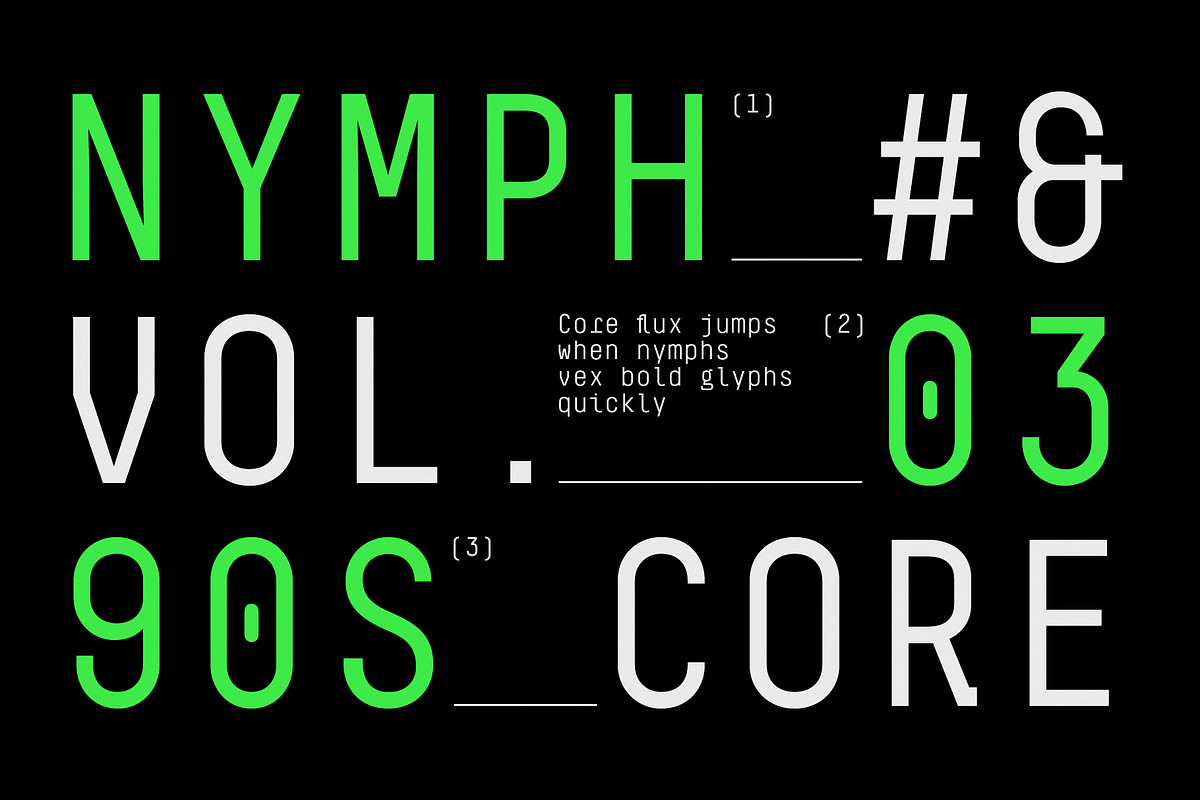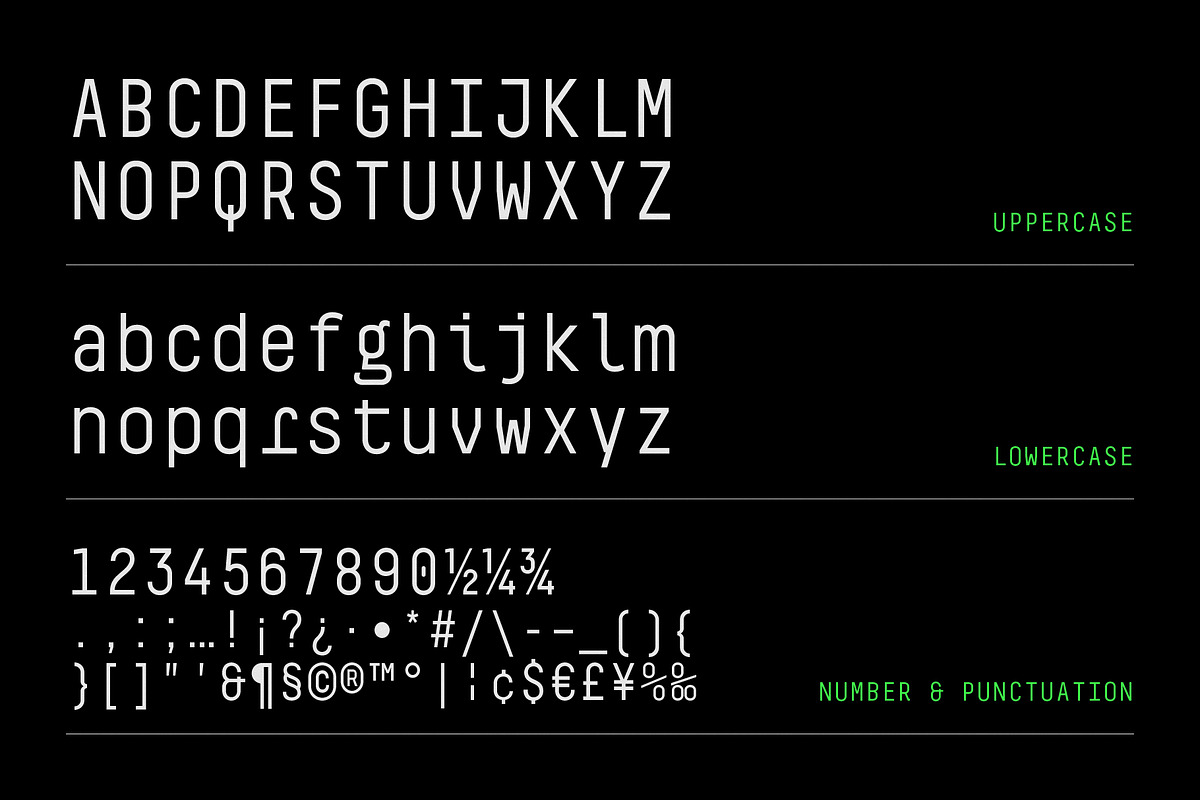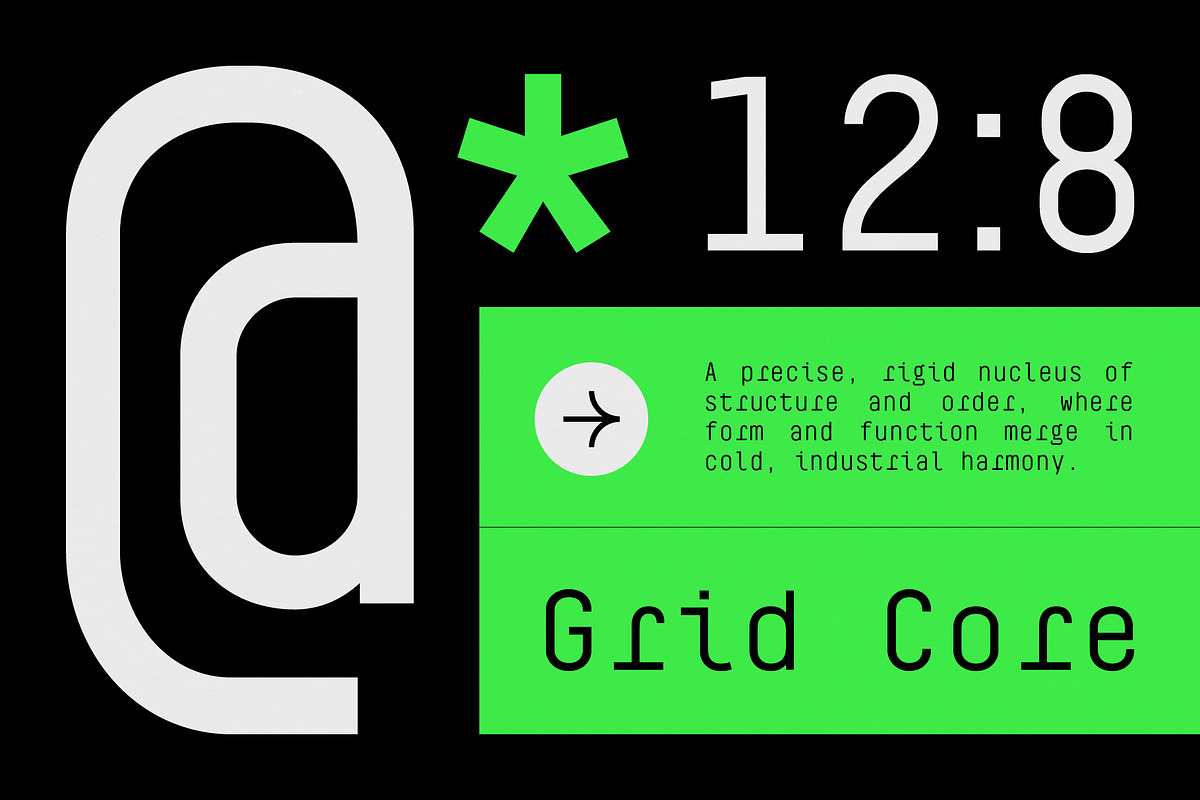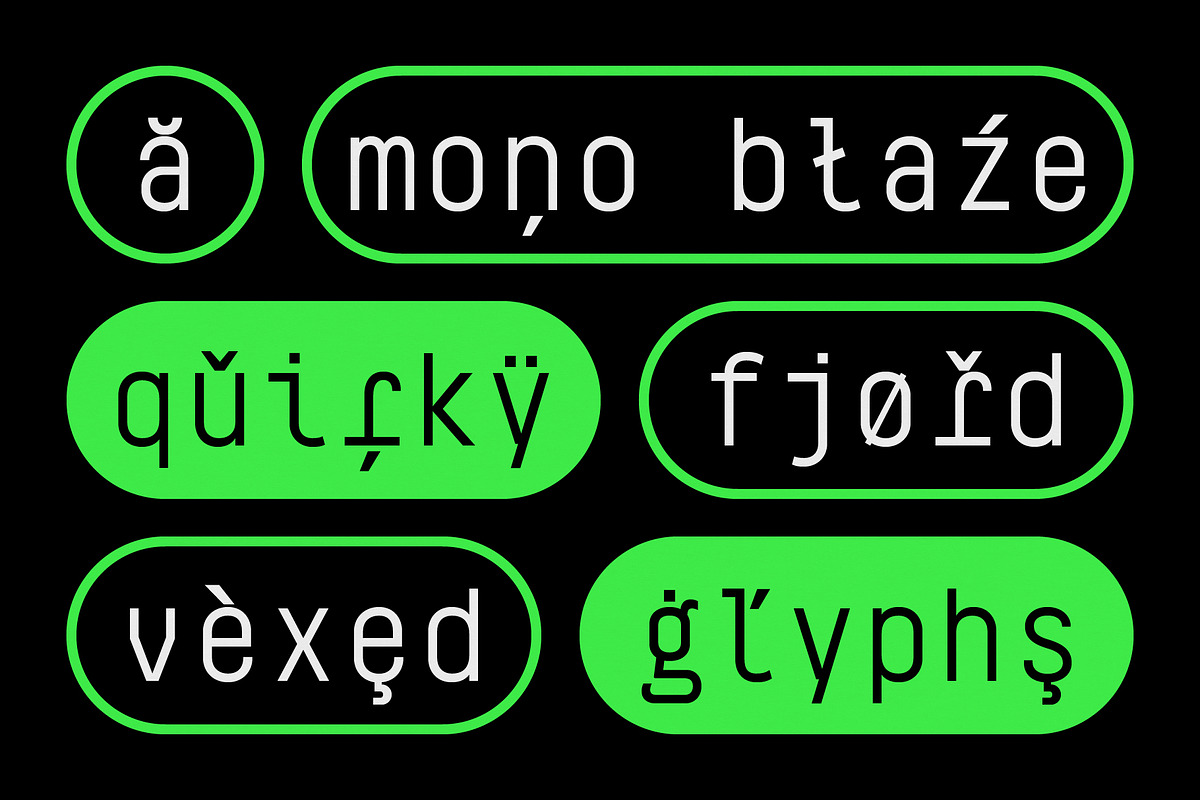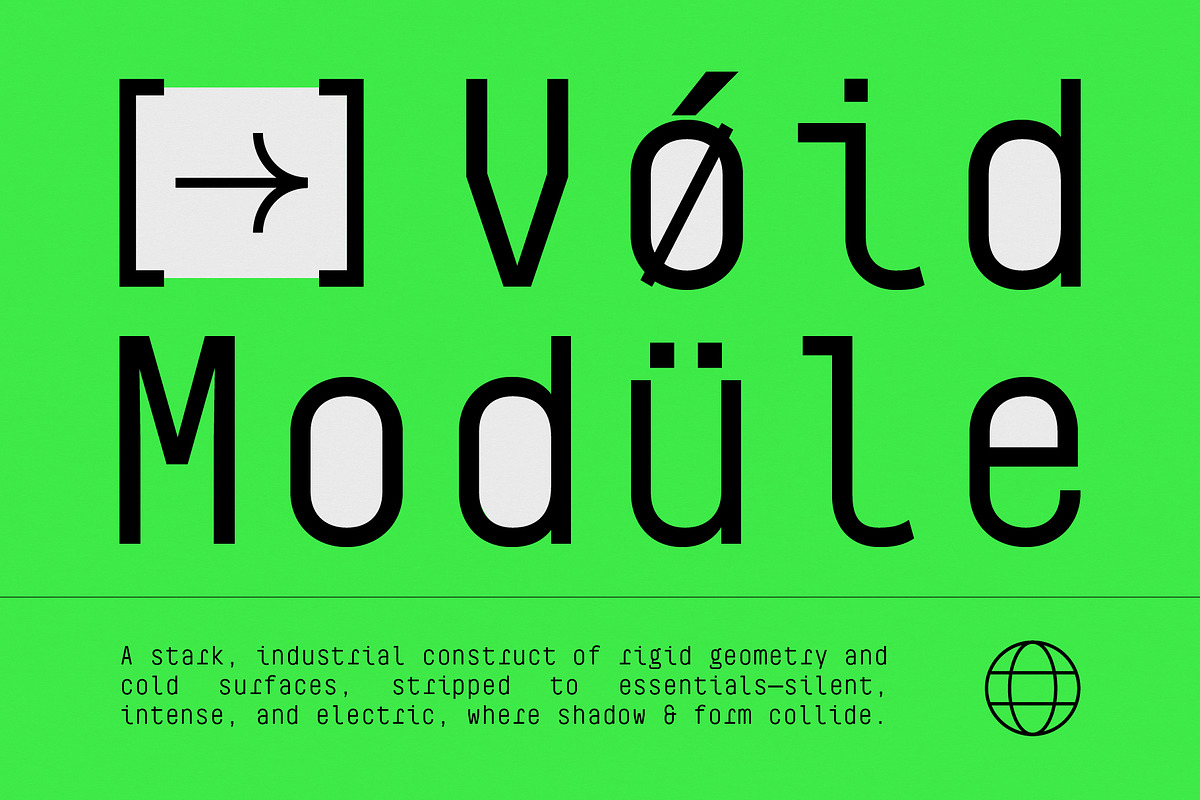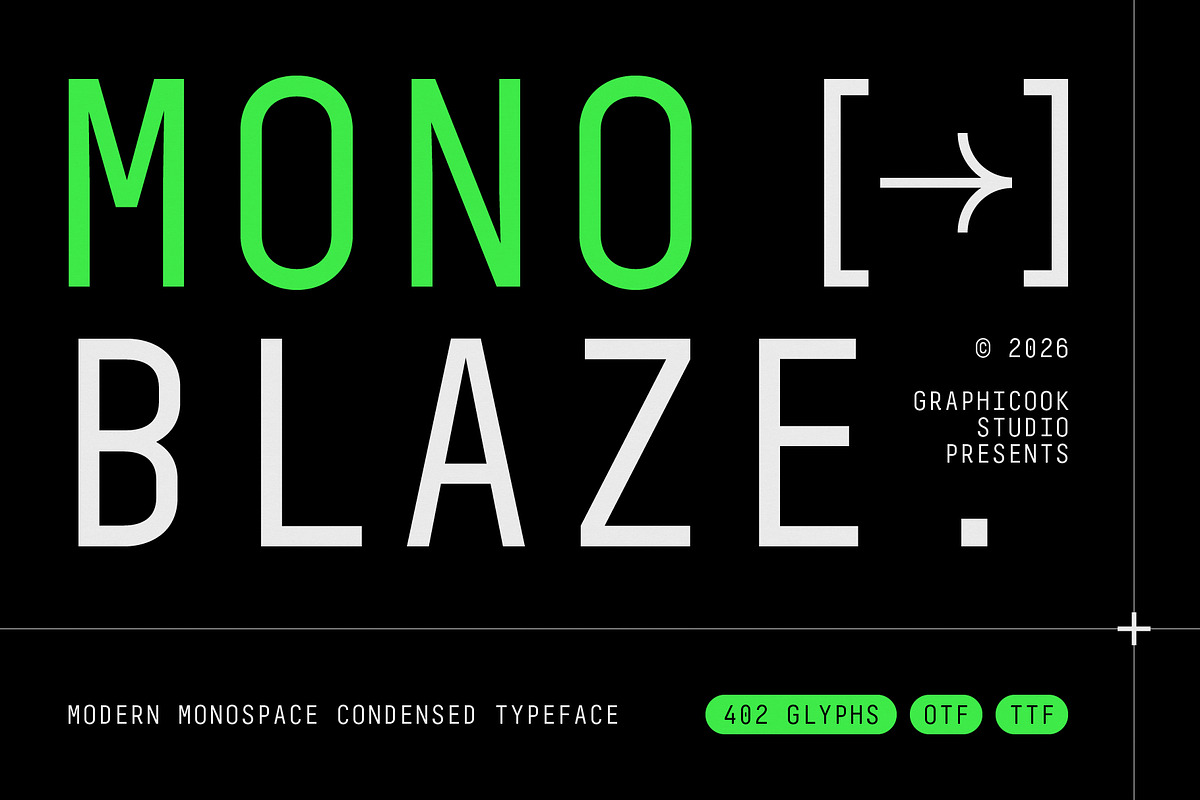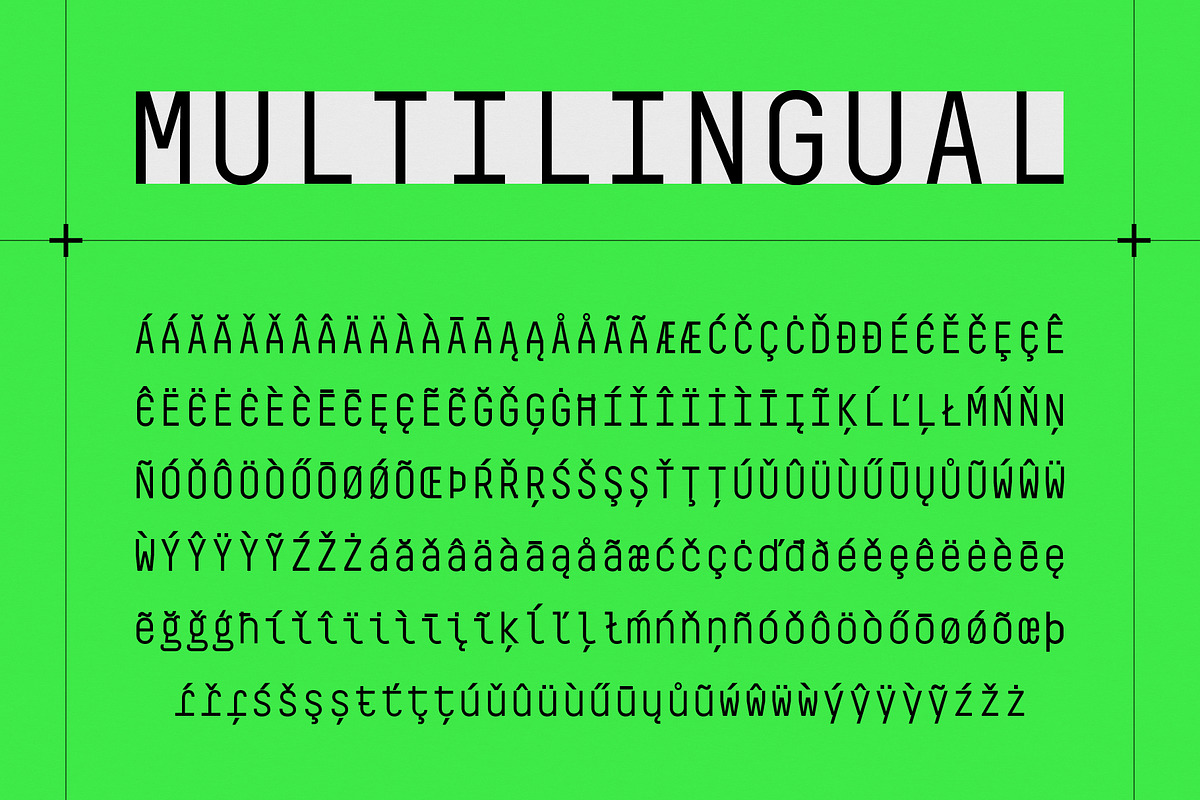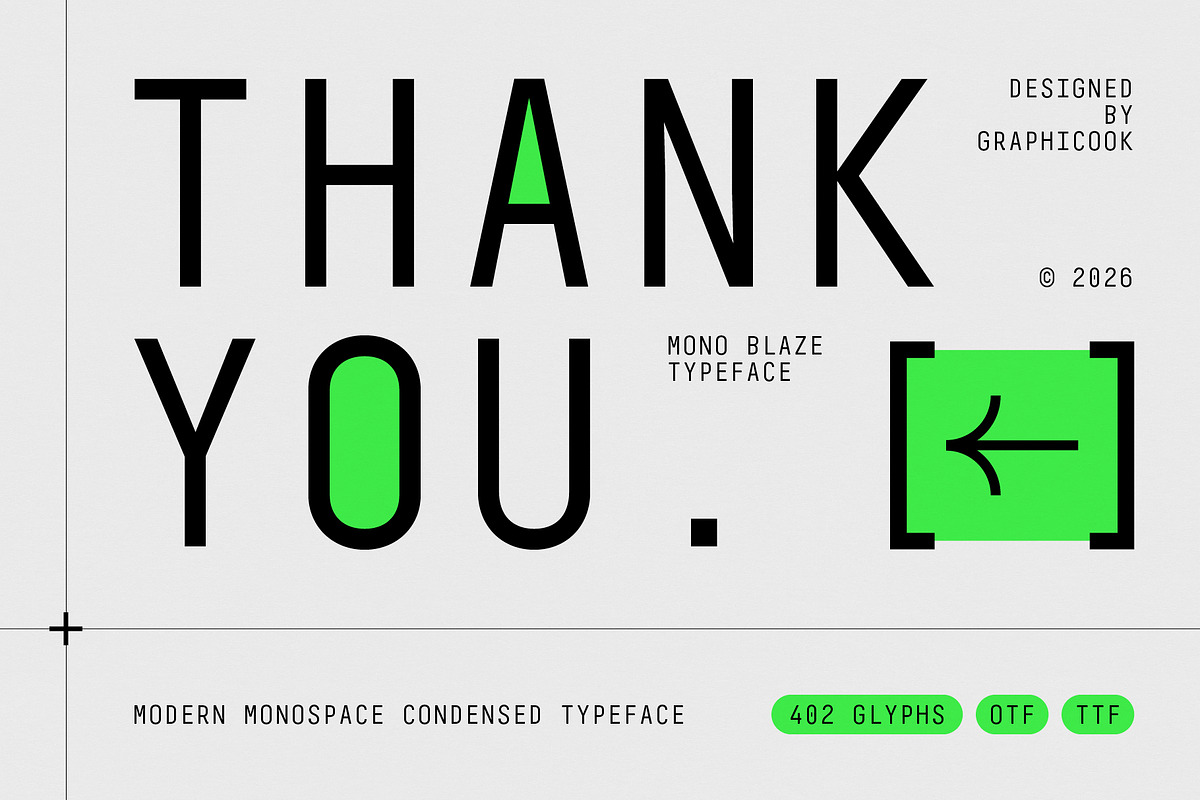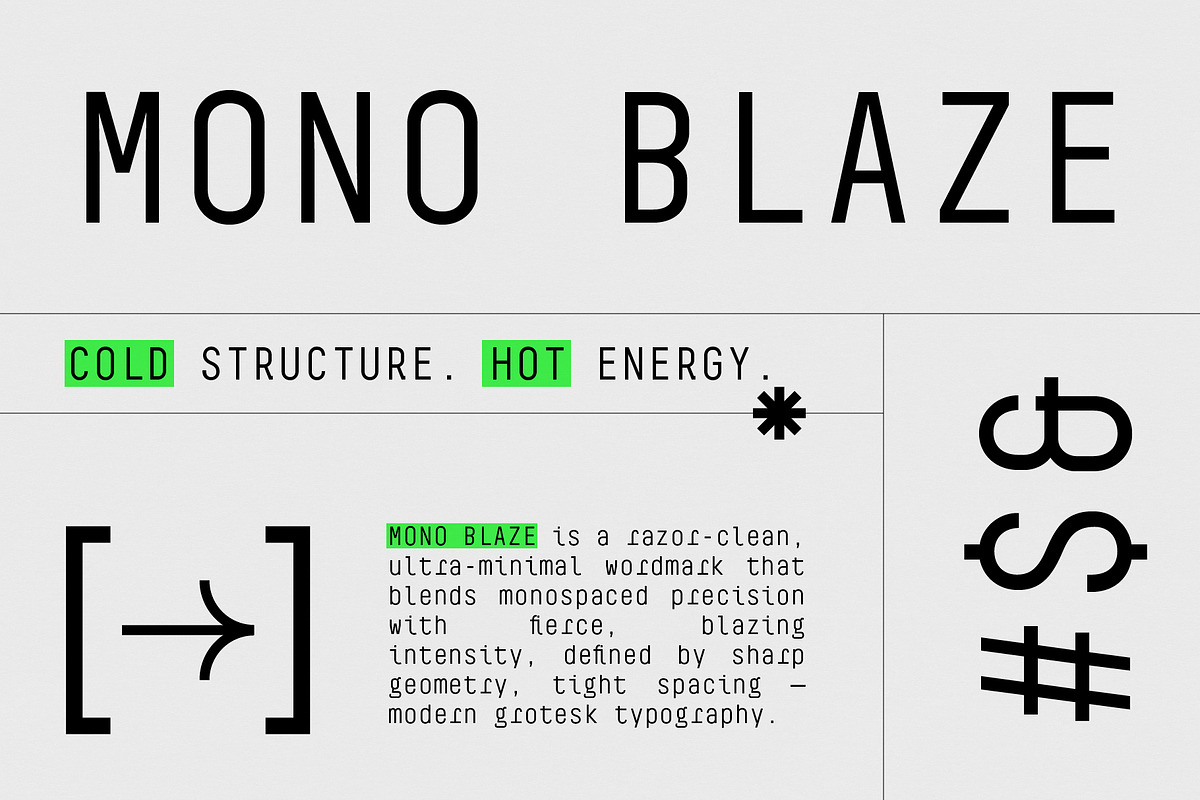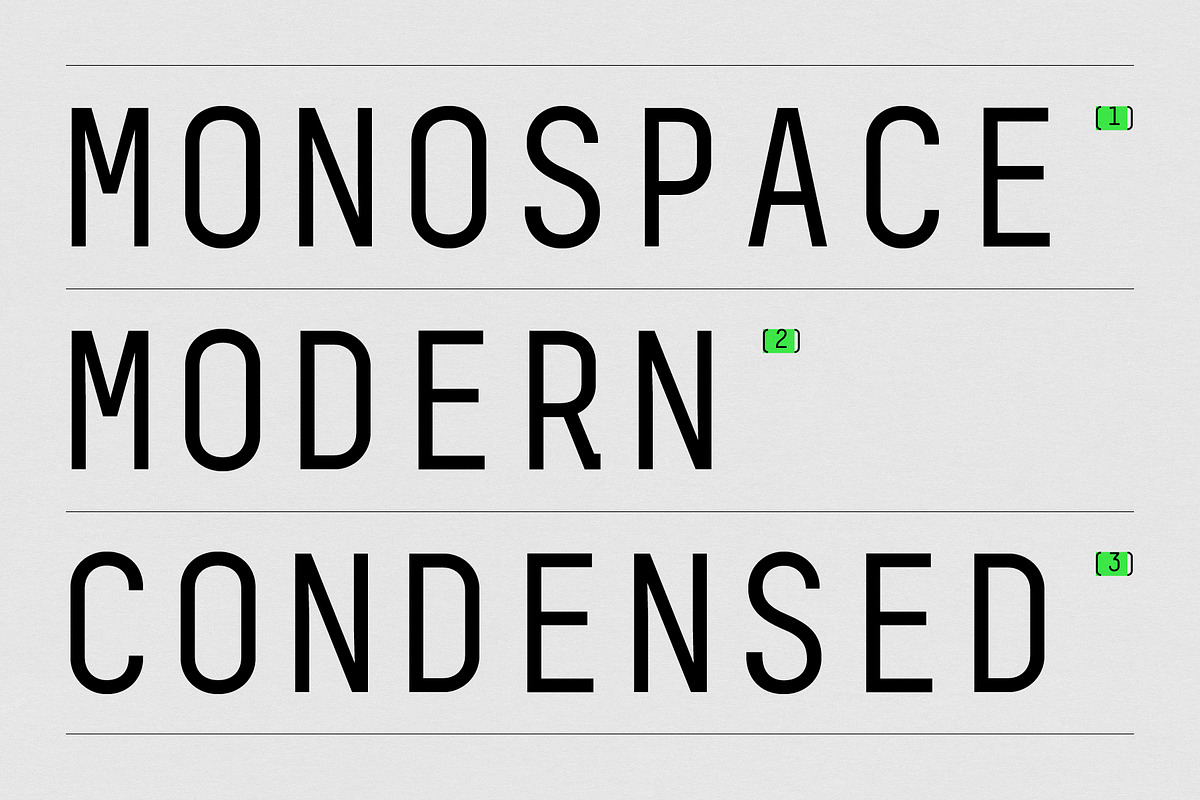
Mono Blaze
Mono Blaze is a modern monospaced condensed typeface designed for clean, futuristic, and high-impact typography. Mono Blaze delivers a strong visual rhythm that works beautifully for headlines, UI design, coding themes, branding, editorial layouts, posters, and digital interfaces.
It is perfect for headlines, logotypes, magazines, packaging, quotes, movies, games, cover albums, book covers, and flyers, it's a perfect solution for creating eye-catching designs that stand out in any context.